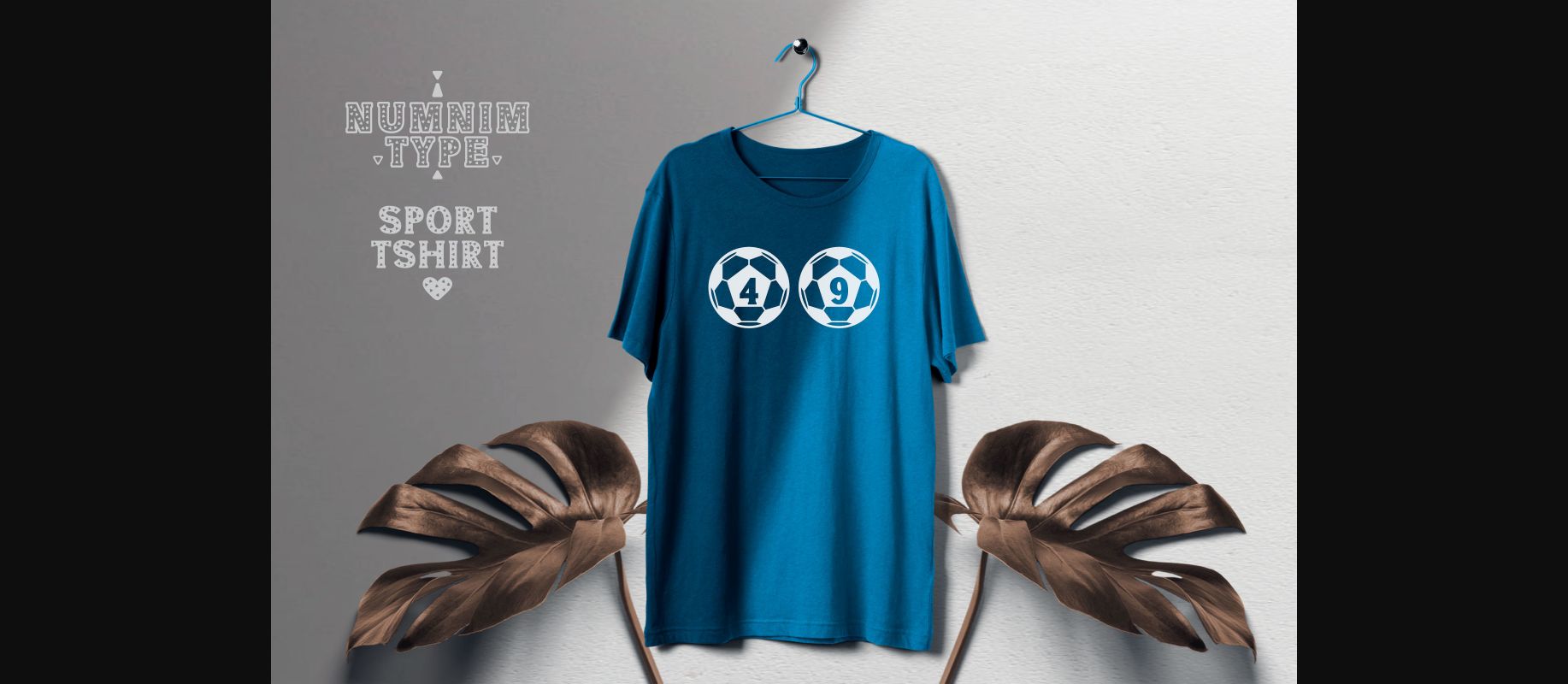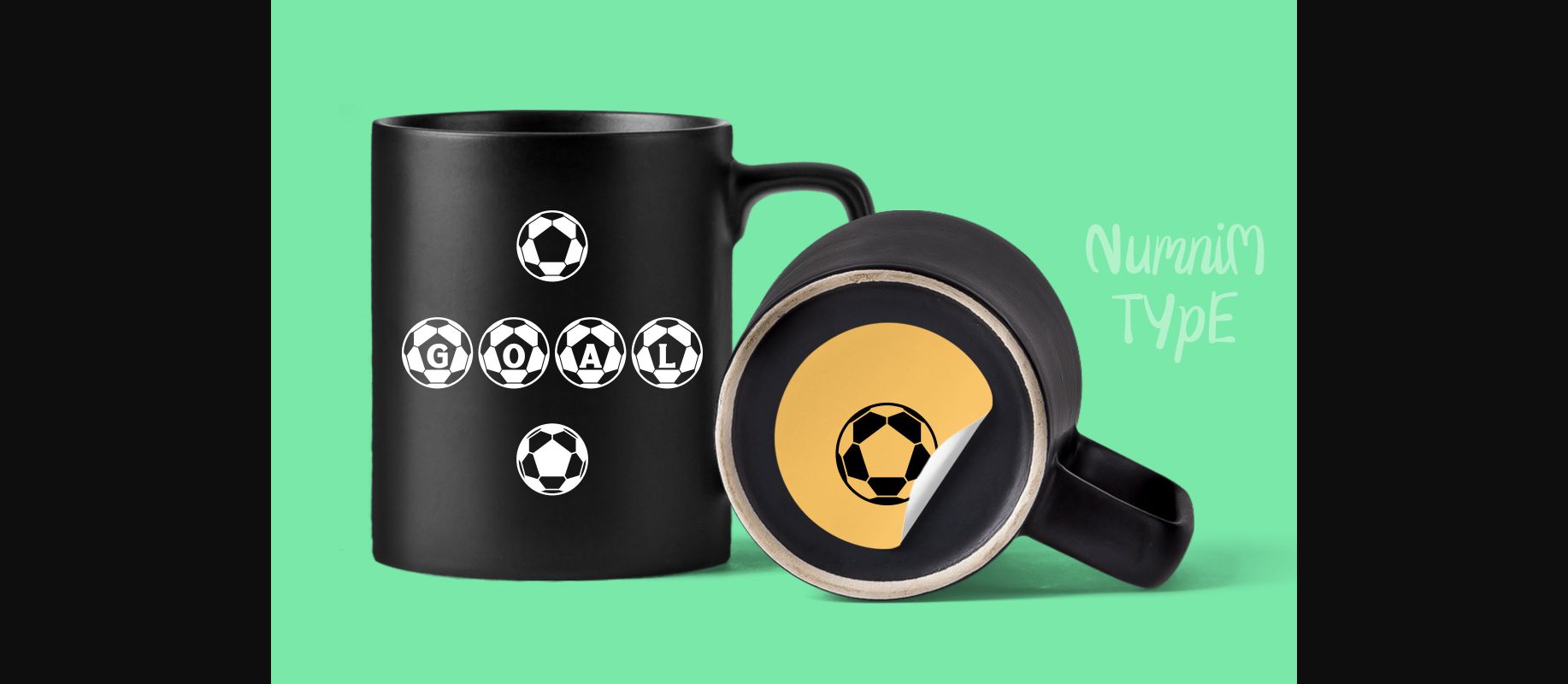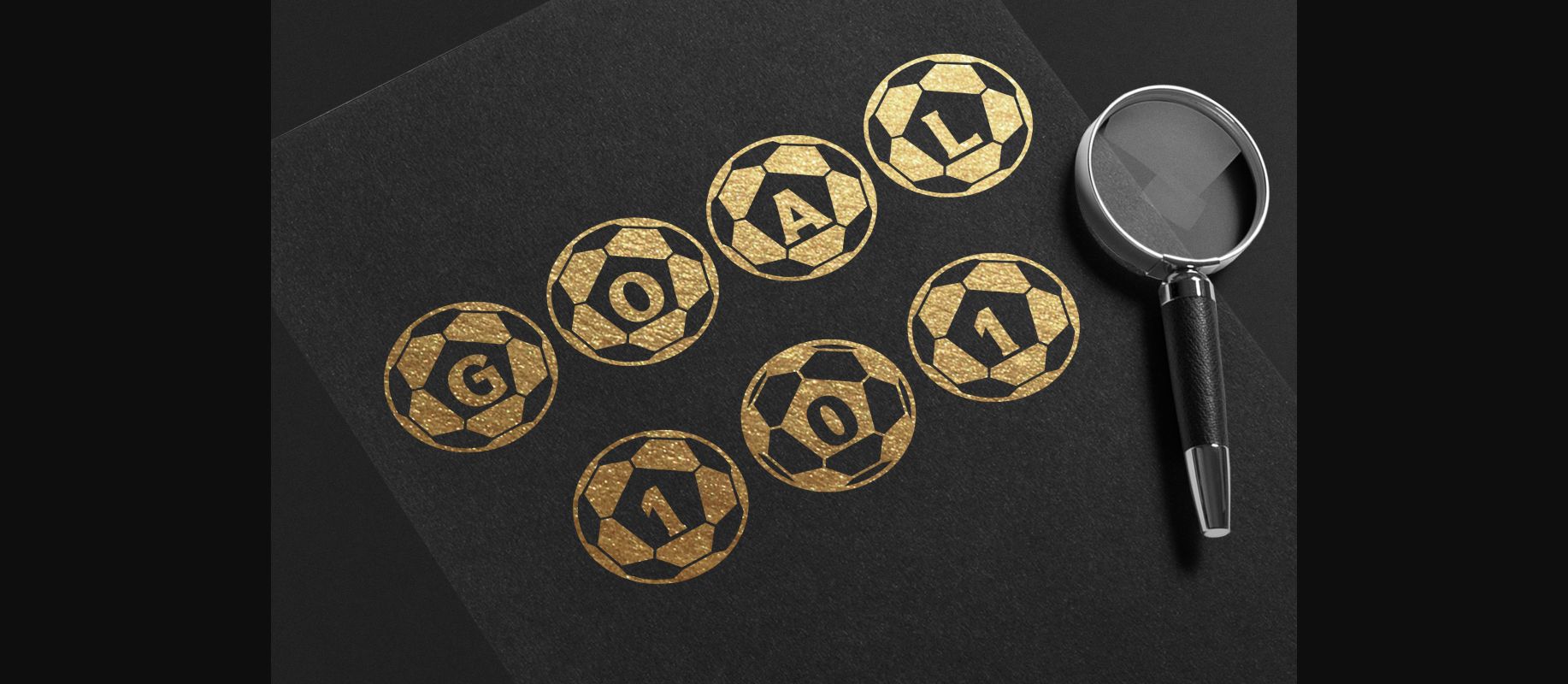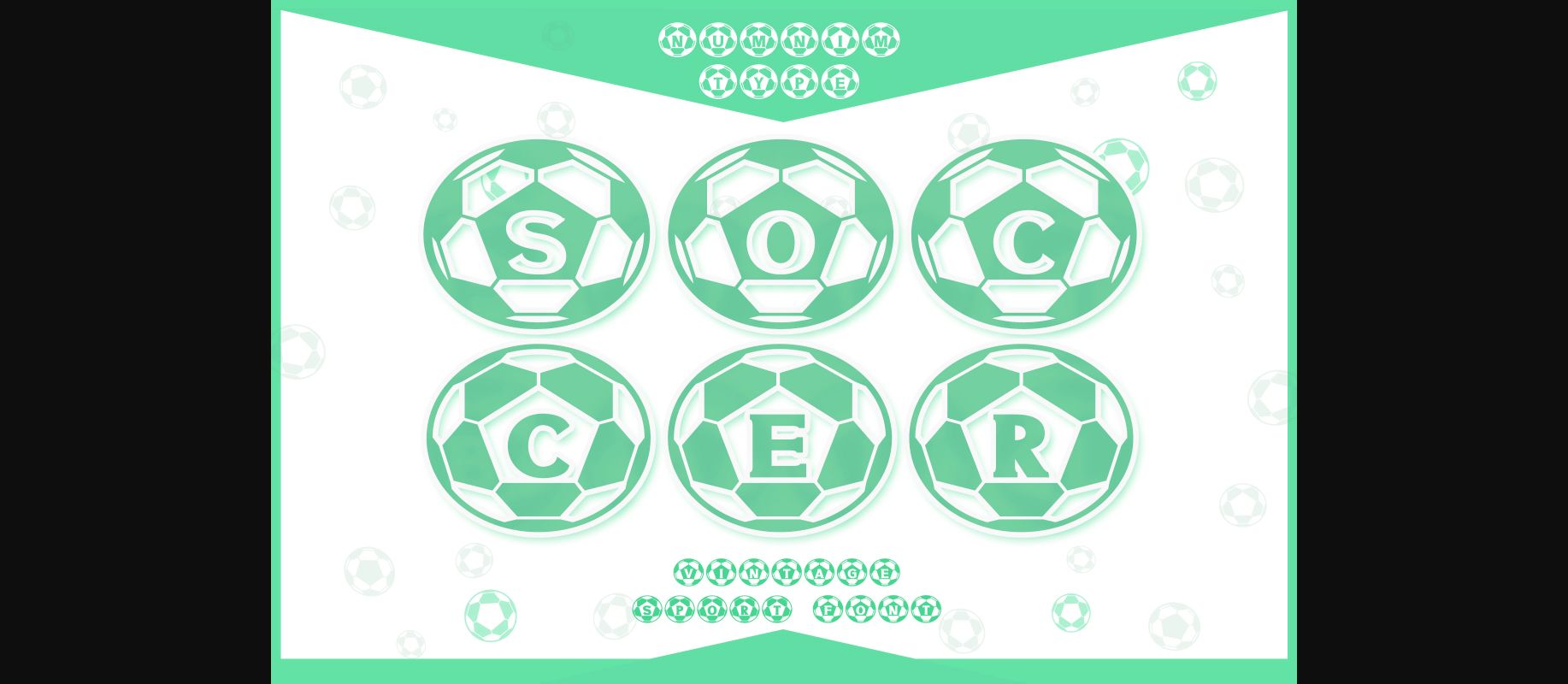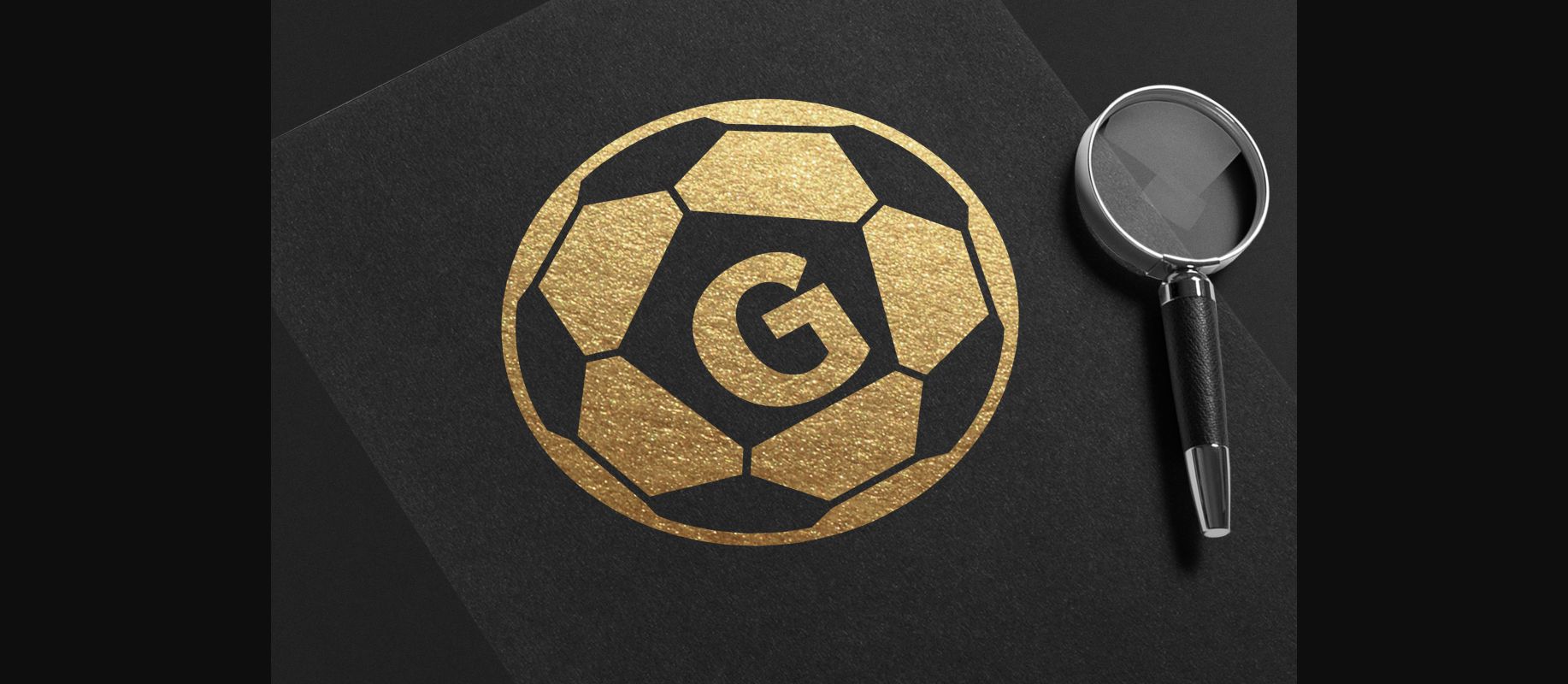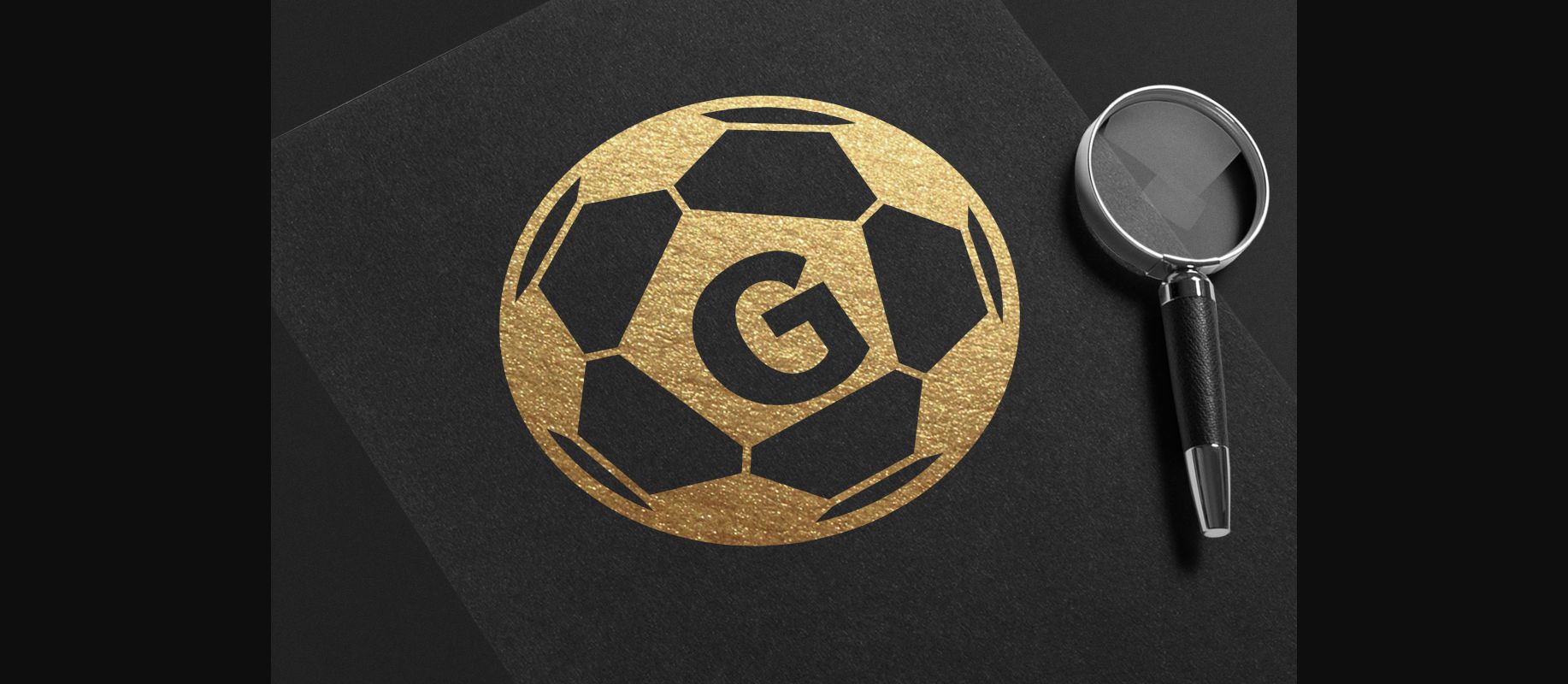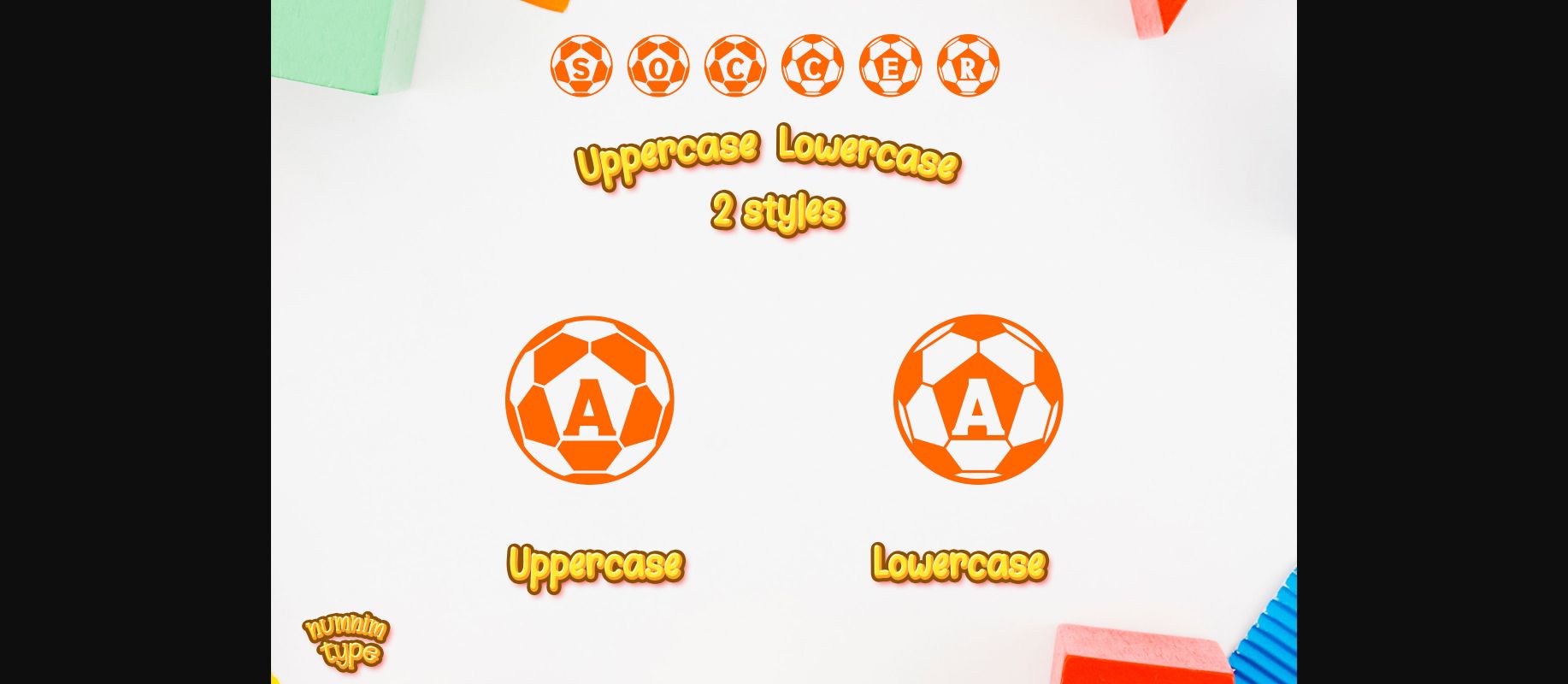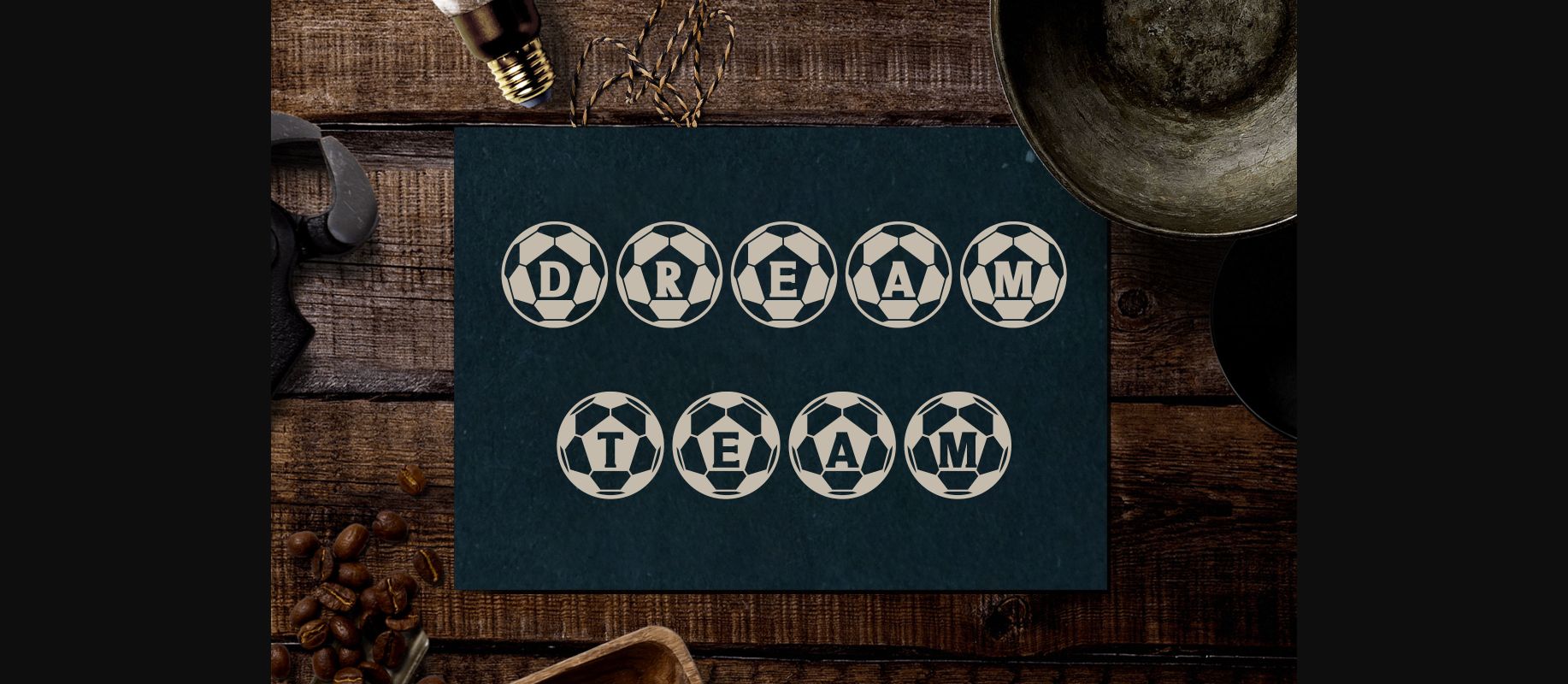
About Soccer Font
Soccer is a cool and bold decorative font. It is ideal for creating sports-related magazines, games, apparel designs, and more. Add it confidently to your projects, and you will love the results!